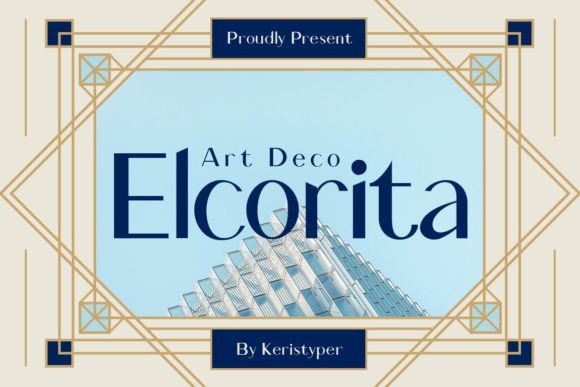
Welcome to the world of Elcorita, where creativity meets elegance. This stunning sans serif font family captures the essence of modern luxury and sophistication. Inspired by the glamour of the Art Deco era, Elcorita exudes a timeless charm that complements any design.
Step into the world of Elcorita, a stunning sans serif font masterpiece that radiates sophistication. Let your imagination soar as you create captivating logos, designs, and branding that stand out from the ordinary. With its bold contrasts and clean, simple lines, Elcorita is the perfect choice for elevating your visual creations.
Elcorita is a versatile font that adapts effortlessly to any project. Whether you're crafting social media posts, designing movie titles, or writing book covers, Elcorita adds a touch of elegance and charm. Its wide range of weights and styles gives you the flexibility to express yourself fully, from delicate and graceful to bold and commanding.
Immerse yourself in the beauty of Elcorita's well-crafted characters. Each letterform is a work of art, carefully designed to enhance readability and visual appeal. Whether you're working with short texts or long passages, Elcorita ensures clarity and impact.
Unleash your creativity and make a statement with Elcorita. This remarkable font will transform your designs, adding a touch of timeless glamour and sophistication. Let Elcorita be your muse as you create projects that resonate with style and elegance.